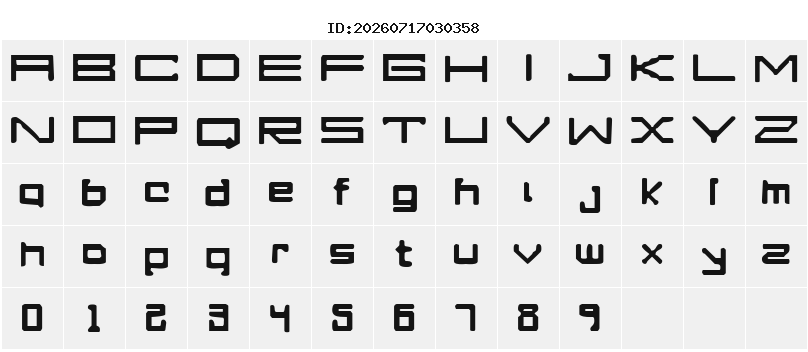
• Font Name: A Perfect Drowning
• Description: I made this when I was bored one day at my job.. Hope u like the shit.
A Perfect Drowning.ttf is a modern, elegant sans-serif font designed for ultimate readability and visual harmony. Perfect for branding, headlines, web design, and print materials.